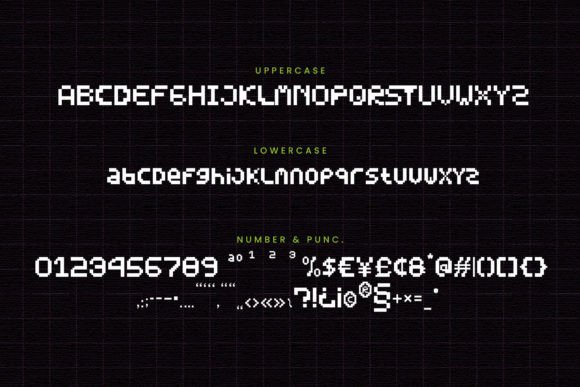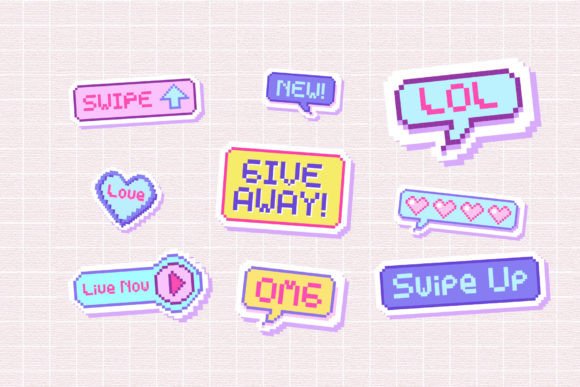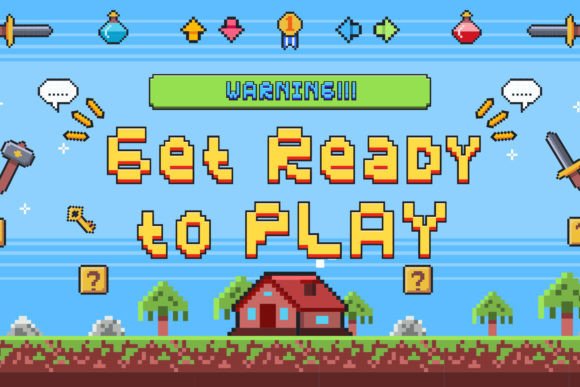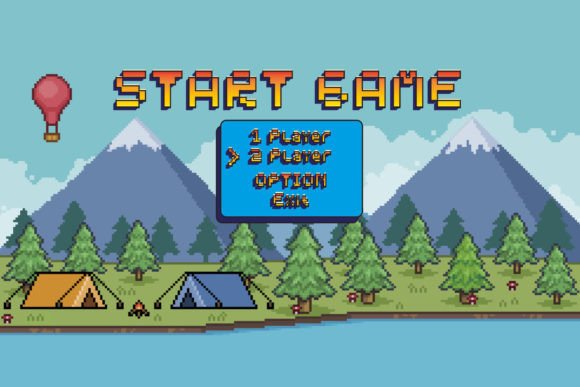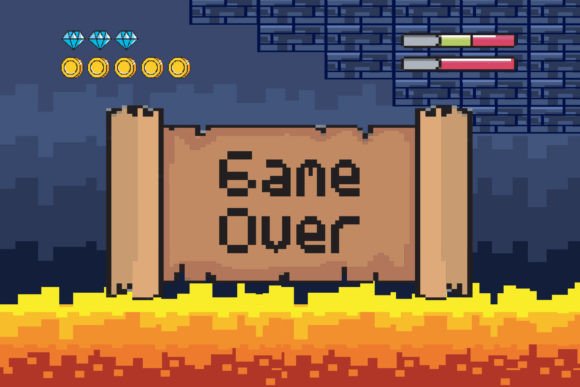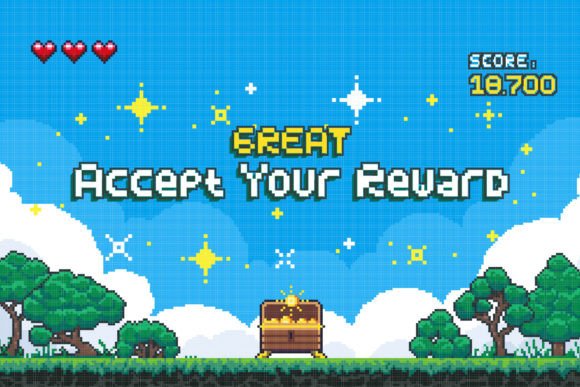
Introduction to Pixelate Font
Have you ever been working on a creative project, and suddenly, you need a font that captures the essence of digital innovation and nostalgia? I know I have. As a designer, I’ve been there – scrolling through font libraries, searching for that perfect combination of retro charm and modern style. And then, I stumbled upon the Pixelate Font – a game-changer in the world of typography.
This futuristic techno typeface is inspired by the pixel art of retro video games and the sleek lines of modern technology. With its precision-crafted letters and squared edges, Pixelate Font is a design resource that injects energy and excitement into any composition. Whether you’re working on a technology-related project, gaming graphics, or futuristic branding, Pixelate Font is the perfect choice.
What sets Pixelate Font apart is its versatility – it’s available for free download, making it an accessible design resource for creatives of all levels. Plus, its high-quality design and transparent background make it a valuable addition to any design project. So, get ready to unleash your creativity and take your designs to the next level with the Pixelate Font.
Key Features of Pixelate Font
- High-quality vector font with a unique pixelated design, perfect for creative projects.
- Transparent background option for seamless blending with other design elements.
- Pixelate Font comes in 6 different sizes, from 12pt to 72pt, making it suitable for various design applications.
- Resolution-independent design ensures crisp and clear rendering at any resolution, from low to high.
- Perfect for designers, artists, and creatives working on digital art, graphic design, and web design projects.
Honest Review: Pixelate Font
I recently stumbled upon the Pixelate Font, and I’m excited to share my honest review with you. As a designer, I’m always on the lookout for high-quality design resources to elevate my creative projects.
- ✨ Unique pixelated style: The font’s distinctive look adds a touch of retro flair to any design project.
- ✨ High quality: The font is well-crafted and suitable for a wide range of applications, from digital displays to print materials.
- ✨ Transparent background: The font’s transparent background allows for seamless integration with other design elements.
- ⚠️ Limited character set: The font’s character set is somewhat limited, which may restrict its use in certain projects.
- ⚠️ Not suitable for large text: Due to its pixelated design, the font may not be ideal for large text sizes or headlines.
Overall, I’m impressed with the Pixelate Font’s unique style and high quality. While it may have some limitations, it’s a valuable design resource that can add a touch of creativity to your projects. Whether you’re working on a digital design or print project, the Pixelate Font is definitely worth considering.
Tips for Getting the Most Out of Pixelate Font
Experiment with different font sizes, colors, and alignments to achieve the desired effect. Use the transparent background feature to create a seamless design. Consider combining Pixelate Font with other design elements, such as images or shapes, to add visual interest to your creative project.
Pixelate Font is ideal for creative projects that require a unique and eye-catching text effect. Some common use cases include: